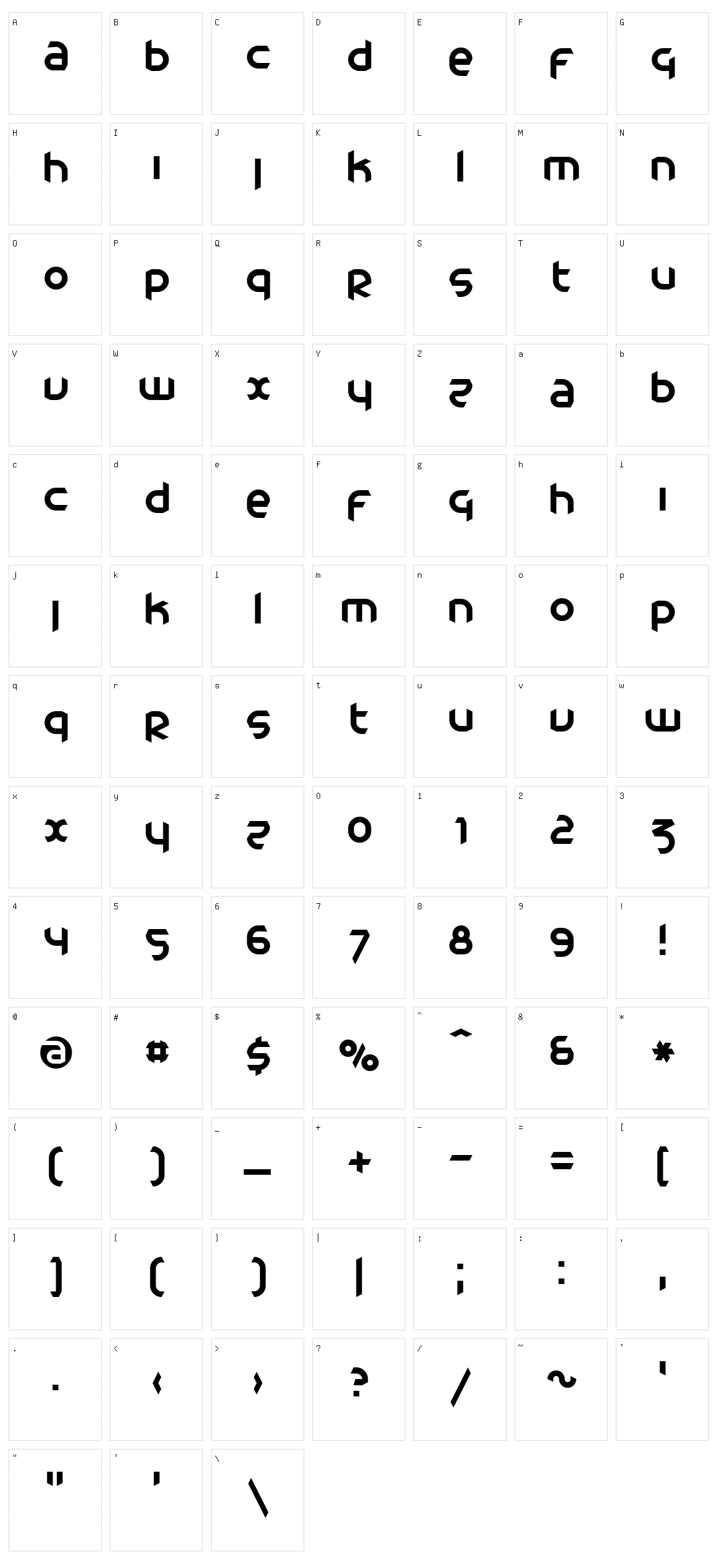
Catharsis Cargo
Cargo is intended as a highly scalable, utilitarian font with a
certain futuristic air, especially for uses like warning signs,
spaceship hull emblems and cargo crate markings.
v1.1: Switched to descending "a"s, so that at least the upper x
height would be a constant for all letters. Also no
longer requires a different letter shape for accented
"a"s. Added copyright, TM and a few other glyphs. Made